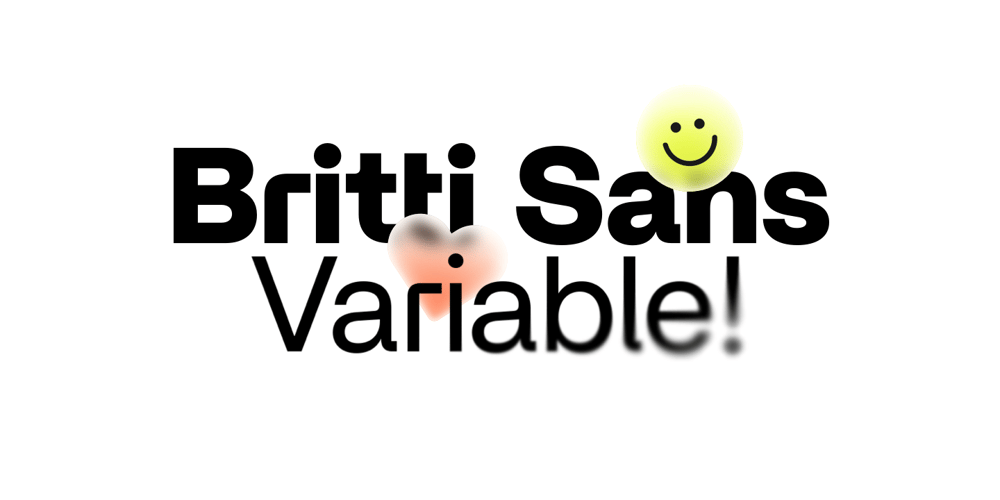
Britti Sans Font Family was designed by Guillermo and published by Nois. Britti Sans contains 14 styles and family package options. Britti Sans is a modern grotesque typeface that has geometric details and deep roots in industrial design principles. Its opentype features (alternate characters, localised characters, multilingual characters) give it greater versatility allowing it to adapt to a wide range of contexts.Among its features are contextual alternates, uppercase and lowercase localized Sharp S, numerators and denominators, a wide range of currency symbols including the Bitcoin symbol, emojis and icons, proportional and tabular numbers, fractions and circled numbers.The family has 7 styles + italics and a two-axis variable cut. Any suggestion to continue improving Britti Sans will be welcome.